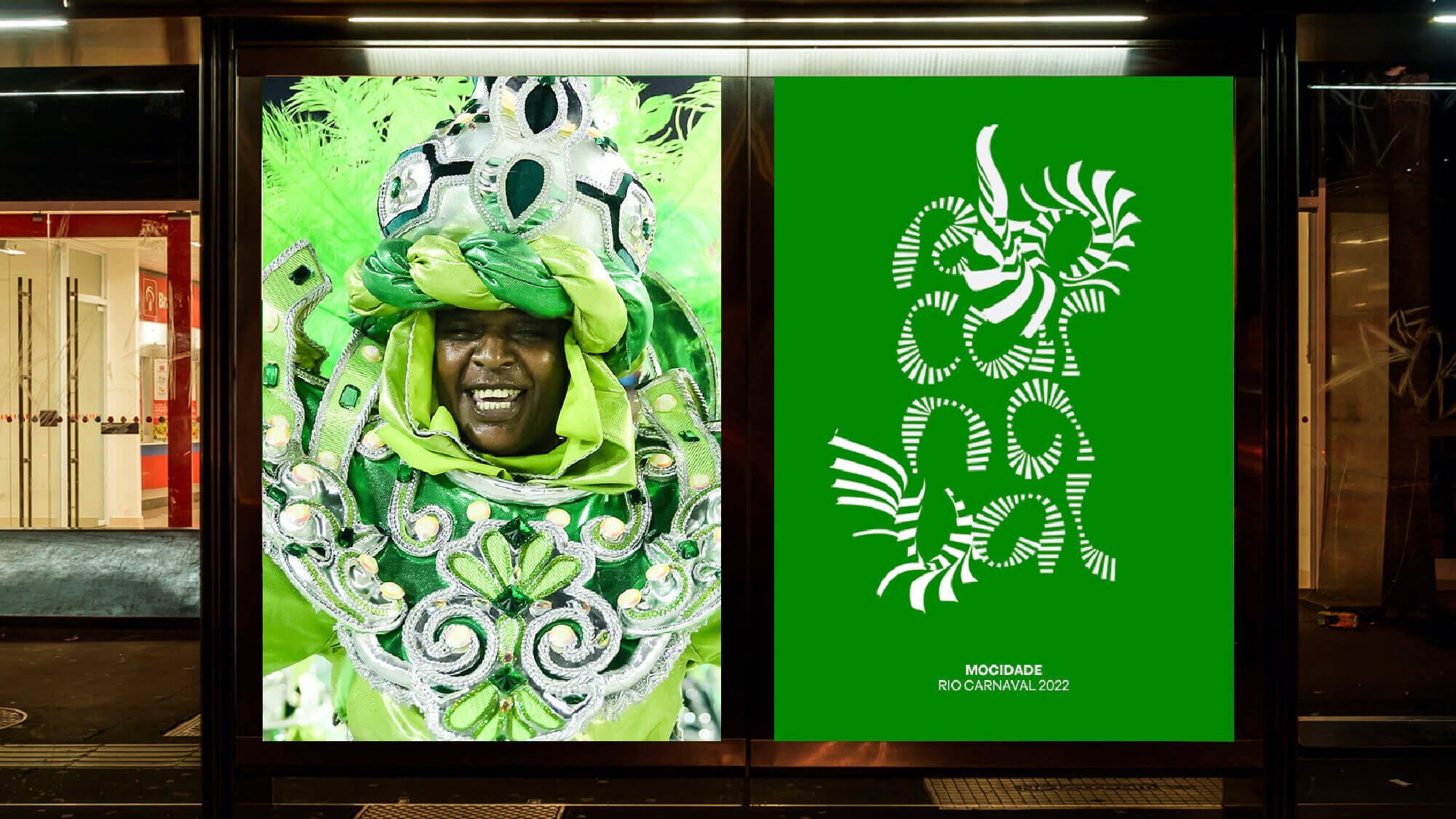
When it comes to distinguishing a brand, type is one of the most important elements. It’s among the first elements people notice when they come across a logo or a website. It’s important to get right. When your event draws millions and lasts only one week, making a memorable impression is never an easy task. This was the challenge for Plau and identity agency Tátil Design.
Capturing the spirit of the people that attend, perform, and make Rio Carnaval possible requires an extensive amount of research and discussion. Rodrigo Saiani and his team wanted to encapsulate the energy and strength of one of the festival’s main highlights: the samba schools.
The goal was to create a vibrant, type-centric brand identity that would stand out against the city’s dynamic visual culture and resonate with typical attendees. This typeface had to be suitable for a variety of media, including billboards, posters, transportation, merchandise, and more. It had to communicate the festival’s history in a modern and unique way while maintaining the traditional essence of Rio Carnaval.
The team discovered their solution by interviewing some of the festival’s most established samba dancers. Through this, an idea blossomed: They needed to add the movement of samba to the typeface. Rather than trying to emulate the dancers themselves, Plau decided to evoke the flags they held, each identifying a different samba school. Saiani took it one step further and invited the flag dancers to his creative studio, where he filmed them executing their routines. He analyzed the footage and started to draw letterforms to match the dancers’ key movements.
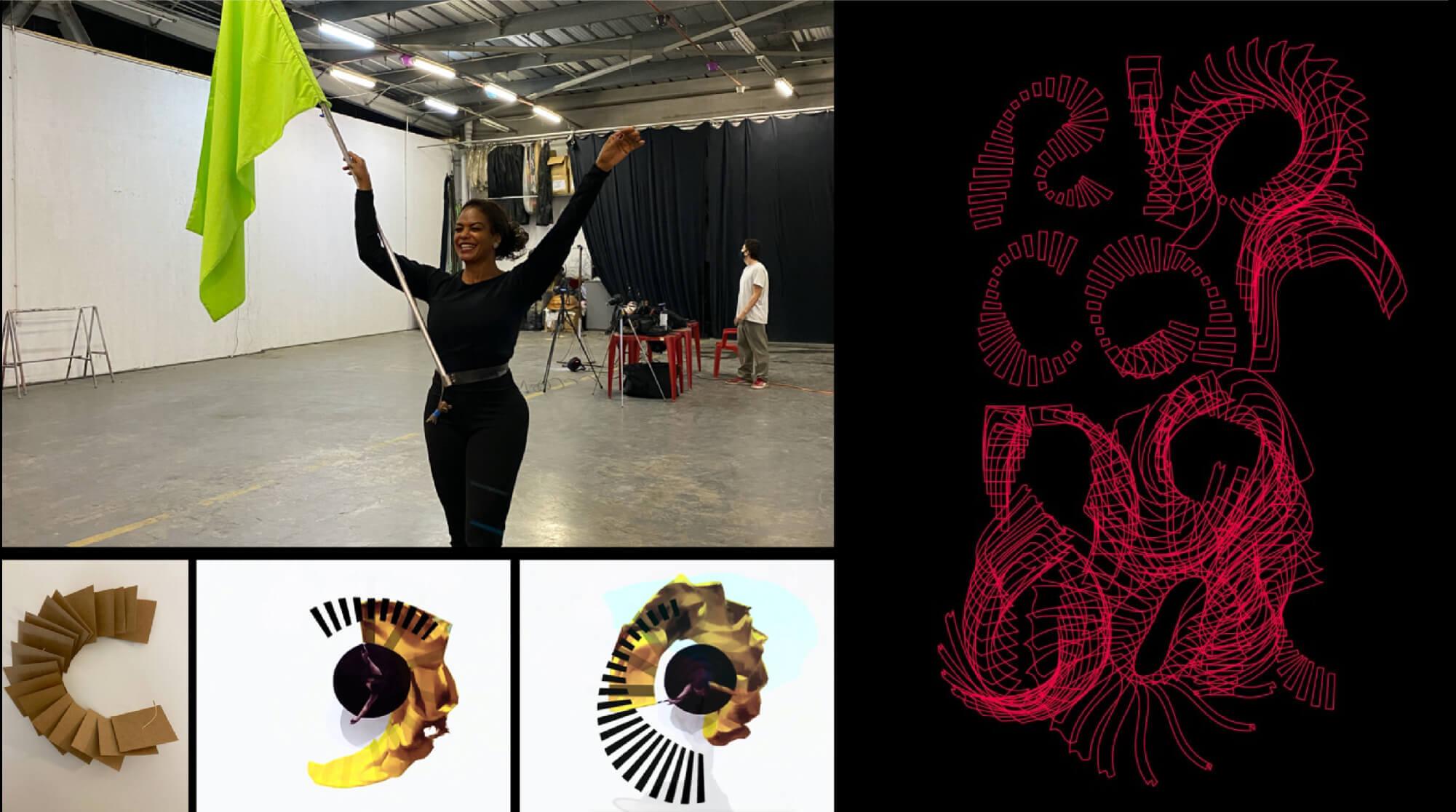
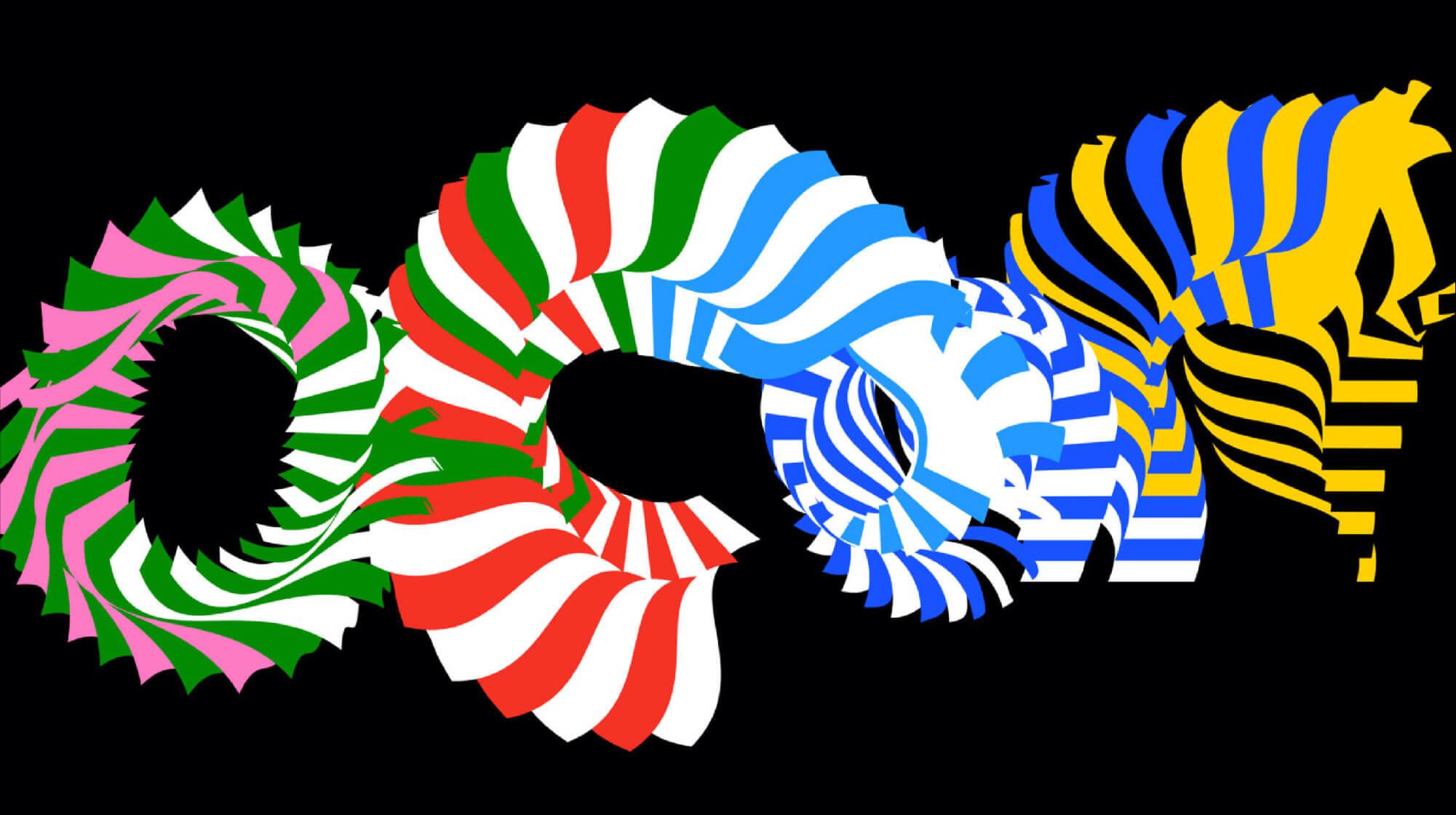
Music sparks conversations, brings people together, and moves ideas forward. So does type.
Using a variable font design created a lasting identity without losing the essence of Carnaval. Overall, it was a great success. Plau, and type designer Rodrigo Saiani, made the typeface dance through their variable brand voice.
In order to breathe life into type, what we need to do is something I call the variable brand voice. It’s thinking about type in terms of animation: How to go from point A to point B using code. Infusing life into the type also makes it more innovative.
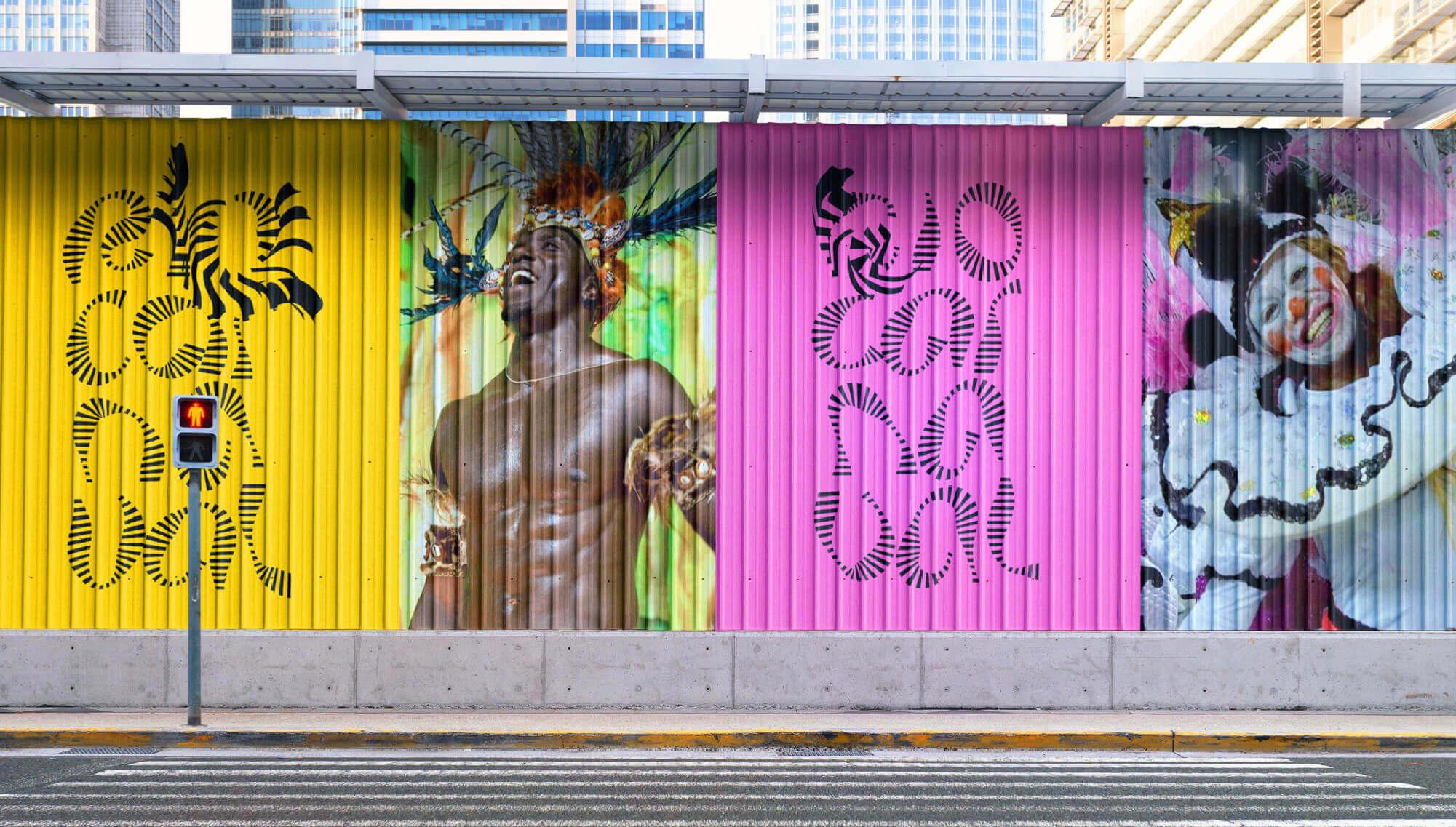
To get international audiences involved, Plau and Tátil Design created an interactive logo generator. Extended from Saiani’s variable font, the tool allows anyone to experience the samba dance in font-form.